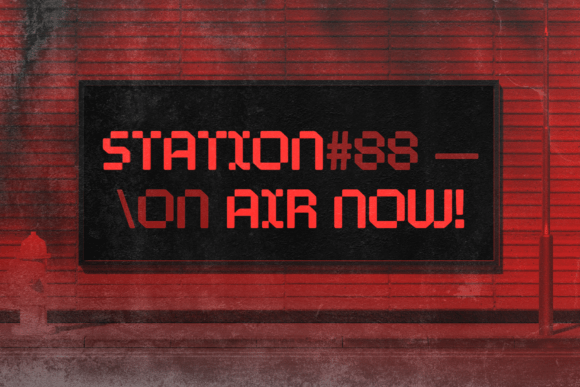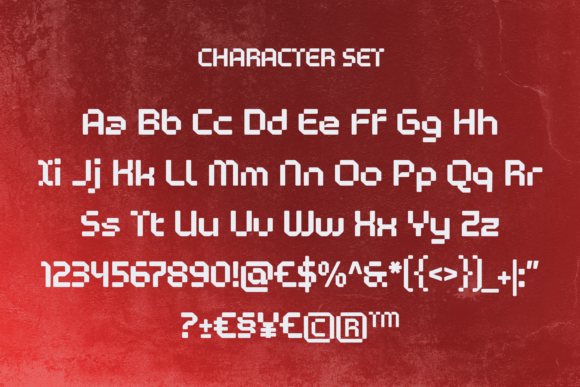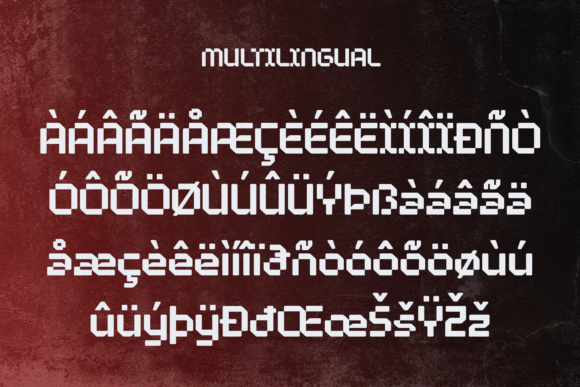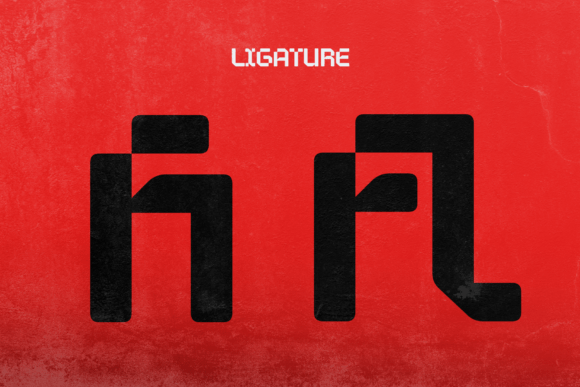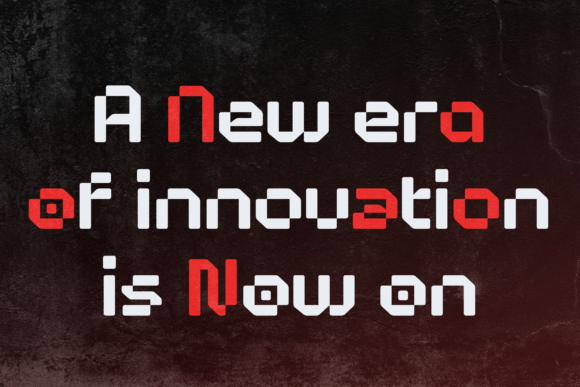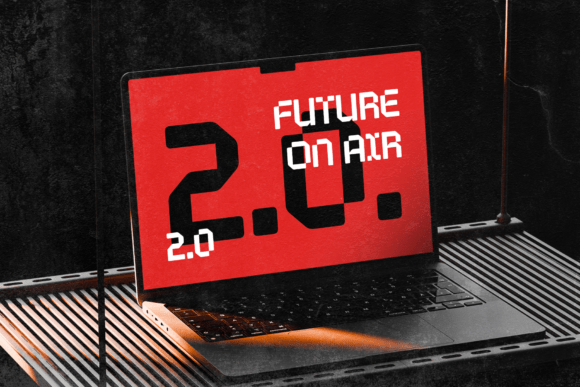
Unleash Your Creativity with Bitram Font: The Ultimate Futuristic Pixel Font
Are you a designer, gamer, or crafty enthusiast looking for a font that can transport your work to a dystopian world of sleek lines, neon lights, and cyberpunk vibes? Look no further than Bitram Font, the ultra-sleek futuristic pixel font that’s taking the design world by storm.
What is Bitram Font?
Bitram Font is a cutting-edge, futuristic pixel font designed to help you create stunning visuals that slice through dark, heavily textured, and smoky cyberpunk illustrative backdrops with absolute authority. Its solid structural proportions and immaculate visual tracking make it the perfect choice for a wide range of design projects, from retro-futuristic arcade game title screens to sci-fi movie posters, streaming channel overlays, alternative electronic music album sleeves, tech-startup branding identities, and edgy industrial streetwear apparel graphics.
Key Features of Bitram Font
- Ultra-sleek design: Bitram Font boasts a futuristic, high-tech look that’s perfect for creating stunning visuals that demand attention.
- Solid structural proportions: The font’s carefully crafted proportions ensure that your text looks balanced and harmonious, even at small sizes.
- Immaculate visual tracking: Bitram Font’s precise tracking ensures that your text is easy to read, even in complex designs.
- Versatile: Bitram Font is suitable for a wide range of design projects, from digital to print.
Use Cases for Bitram Font
Bitram Font is an exceptional standalone centerpiece for a variety of design projects, including:
- Retro-futuristic arcade game title screens: Create eye-catching title screens that transport gamers to a world of pixelated excitement.
- Sci-fi movie posters: Add a touch of futuristic flair to your movie posters and make them stand out.
- Streaming channel overlays: Elevate your streaming channel’s visual identity with Bitram Font’s sleek, modern design.
- Alternative electronic music album sleeves: Give your music a futuristic edge with Bitram Font’s bold, eye-catching design.
- Tech-startup branding identities: Establish your tech-startup’s brand identity with a font that’s both modern and memorable.
- Edgy industrial streetwear apparel graphics: Add a touch of cyberpunk flair to your streetwear designs and make them stand out.
Why Choose Bitram Font?
Bitram Font is the perfect choice for designers and crafters who want to:
- Create stunning visuals: Bitram Font’s ultra-sleek design and precise tracking ensure that your text looks amazing, even in complex designs.
- Save time: With Bitram Font, you can quickly and easily create professional-looking designs that demand attention.
- Stand out: Bitram Font’s unique design ensures that your work stands out from the crowd and leaves a lasting impression.
Bitram Font is a game-changing, futuristic pixel font that’s perfect for designers, gamers, and crafty enthusiasts who want to create stunning visuals that transport their work to a dystopian world of sleek lines, neon lights, and cyberpunk vibes. With its ultra-sleek design, solid structural proportions, and immaculate visual tracking, Bitram Font is the ultimate choice for a wide range of design projects. So why wait? Plug your creative grid directly into a dystopian network with Bitram Font and unleash your creativity today!